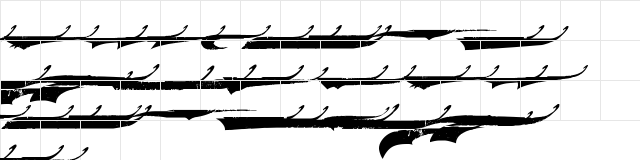
Marcelle Swashes Regular
Design Context for Marcelle Swashes Typeface
Marcelle Swashes flows with the natural rhythm of handwritten lettering, making it ideal for designs that call for warmth and personal expression.
Font Pairing: Combine Marcelle Swashes with a simple geometric sans for maximum contrast — the tension between flowing curves and clean structure is a classic typographic pairing.
Pro Tip: Pair Marcelle Swashes with a clean sans-serif for supporting text. The contrast between fluid script and geometric structure creates an elegant typographic hierarchy.